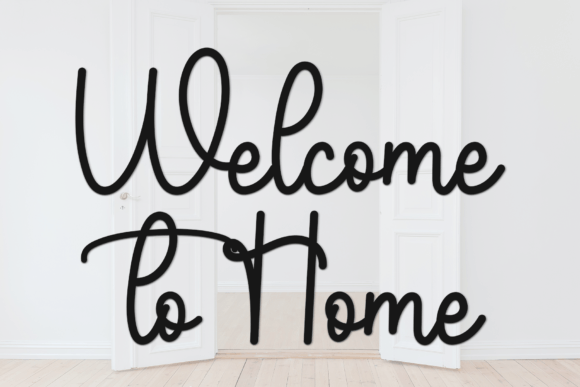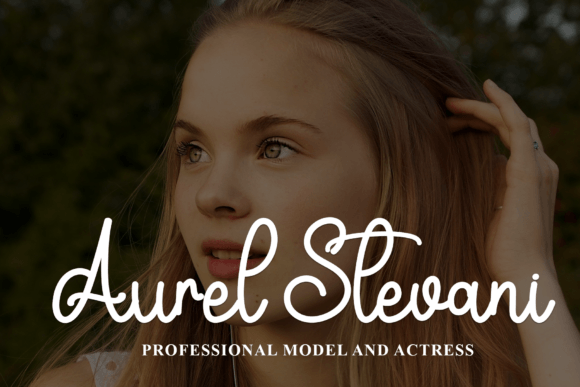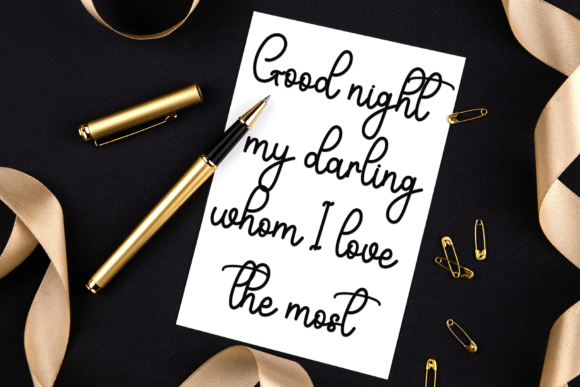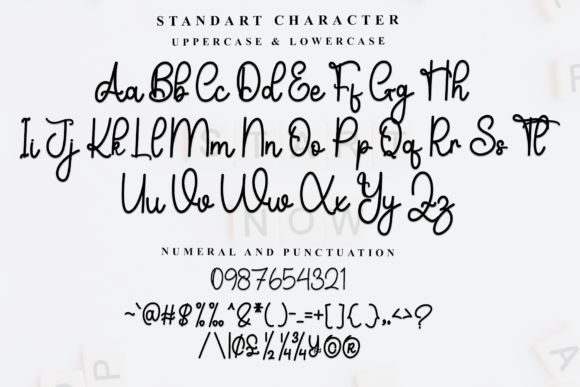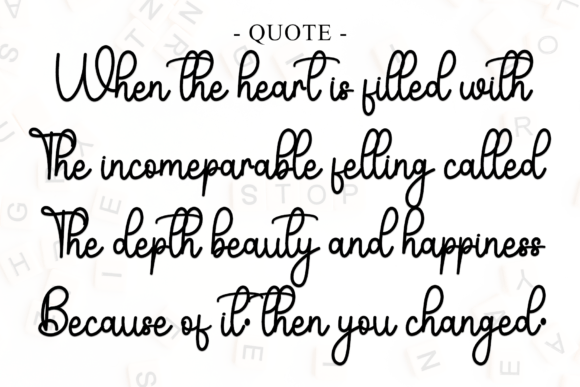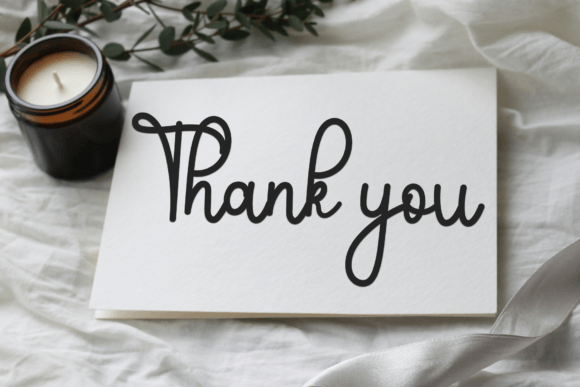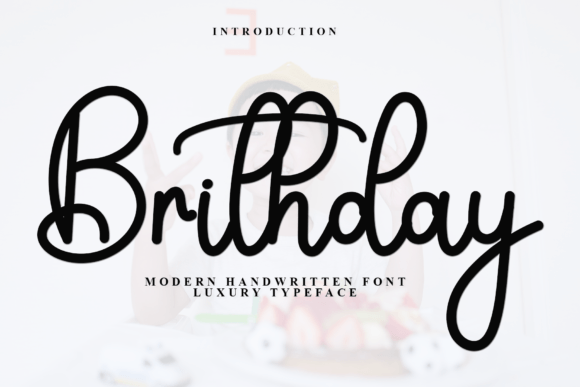
Introducing the Birthday Font: Elevate Your Designs with Elegance and Sophistication
Are you looking for a font that adds a touch of luxury and style to your designs? Look no further than the Birthday Font, a fancy and elegant handwritten font that’s perfect for making special occasions like birthdays even more memorable. With its smooth and beautiful lettering, this font is sure to elevate your designs and leave a lasting impression.
The Characteristics of the Birthday Font
The Birthday Font is a beautifully crafted handwritten font that boasts a luxurious and stylish look. Its elegant lettering flows smoothly and beautifully, making it perfect for a variety of design projects. Whether you’re creating invitations, greeting cards, or social media graphics, this font is sure to add a touch of class and sophistication.
One of the standout features of the Birthday Font is its unique and elegant style. The letters are carefully crafted to create a sense of fluidity and movement, making the font feel dynamic and engaging. The font is also highly legible, making it perfect for use in a variety of contexts, from large headings to smaller body text.
Why Choose the Birthday Font?
So why choose the Birthday Font for your next design project? Here are just a few reasons why this font stands out:
- Elegance and sophistication: The Birthday Font adds a touch of luxury and style to any design project, making it perfect for special occasions like birthdays.
- Versatility: This font is highly versatile and can be used in a variety of contexts, from invitations and greeting cards to social media graphics and more.
- Legibility: The Birthday Font is highly legible, making it perfect for use in a variety of contexts, from large headings to smaller body text.
- Unique style: The Birthday Font has a unique and elegant style that’s sure to make your designs stand out from the crowd.
How to Use the Birthday Font in Your Designs
Using the Birthday Font in your designs is easy. Here are a few tips to get you started:
- Pair it with complementary fonts: The Birthday Font pairs well with a variety of other fonts, so don’t be afraid to experiment and find the perfect combination for your design.
- Use it for headings and titles: The Birthday Font is perfect for use in headings and titles, where its elegant and sophisticated style can really shine.
- Add it to your social media graphics: The Birthday Font is a great addition to social media graphics, where its unique and elegant style can help your posts stand out from the crowd.
- Use it for special occasions: The Birthday Font is perfect for special occasions like birthdays, anniversaries, and weddings, where its luxurious and stylish look can add an extra touch of elegance.
If you’re a designer or crafter looking to use the Birthday Font in your work, here are a few tips to keep in mind:
- Experiment with different colors and textures: The Birthday Font looks great in a variety of colors and textures, so don’t be afraid to experiment and find the perfect combination for your design.
- Pay attention to font size and spacing: Make sure to pay attention to font size and spacing when using the Birthday Font, as this can affect its overall look and legibility.
- Use it to create a cohesive look: The Birthday Font is a great way to create a cohesive look across multiple design elements, such as invitations, cards, and social media graphics.
In conclusion, the Birthday Font is a beautiful and elegant handwritten font that’s perfect for making special occasions like birthdays even more memorable. With its luxurious and stylish look, smooth and beautiful lettering, and versatility, this font is sure to elevate your designs and leave a lasting impression. Whether you’re a designer or crafter, the Birthday Font is a great addition to any project, and is sure to add a touch of class and sophistication.